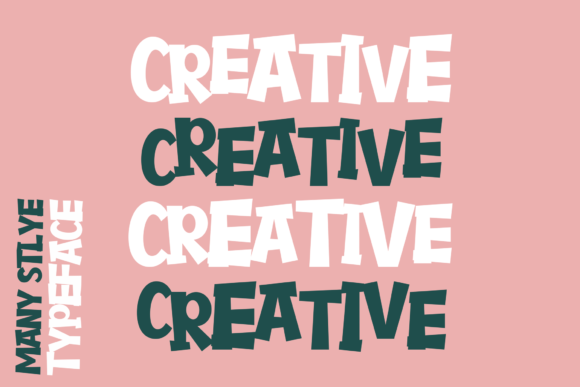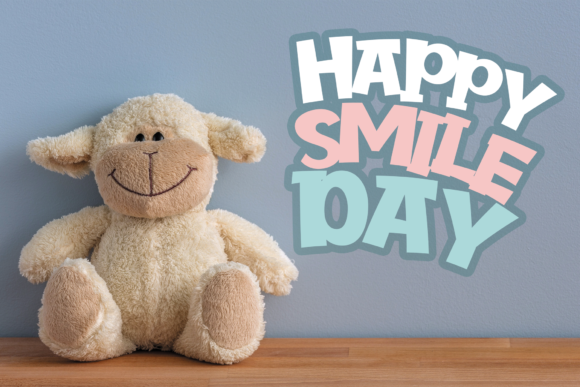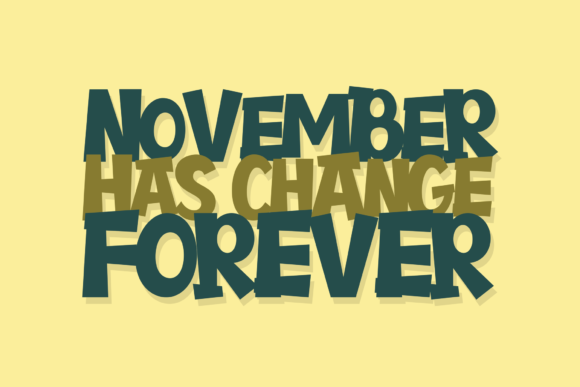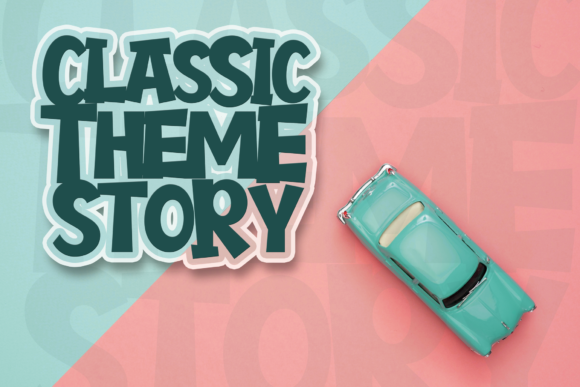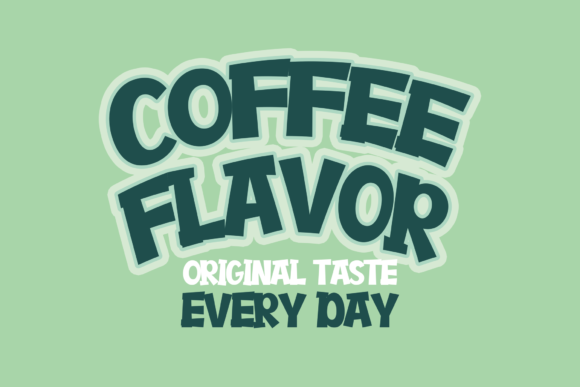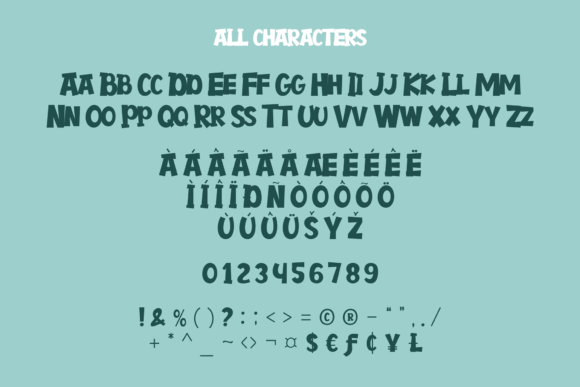
Introduction to Micky Funky Font
Micky Funky is a cute and chunky lettered display font.
It has a unique style and is ideal for children themed designs, especially when combined with bright colors .
Key Features of Micky Funky Font